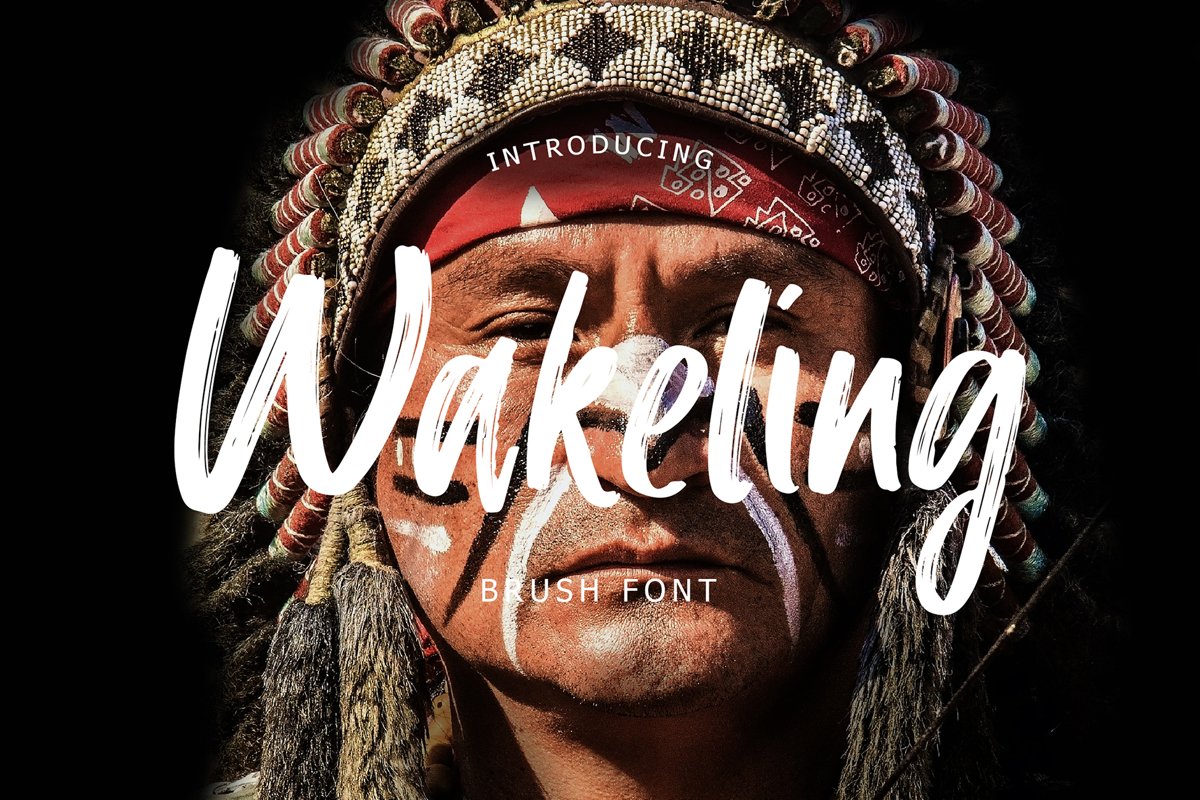
Wakeling Brush Font
Wakeling
Wakeling Brush Font is a handwritten font with a brush style.
This font perfect for branding projects, logo, T-shirt designs, social media posts, advertisements, product packaging, product designs, label, watermark, invitation, stationery, and any projects